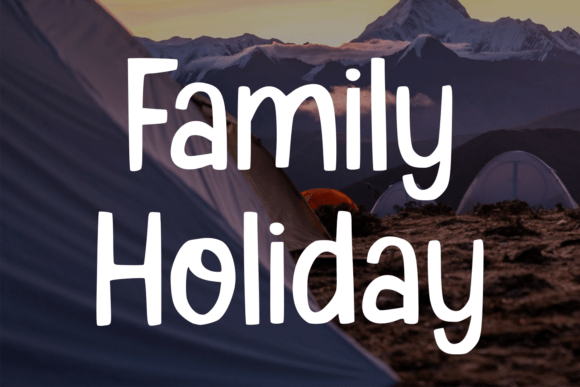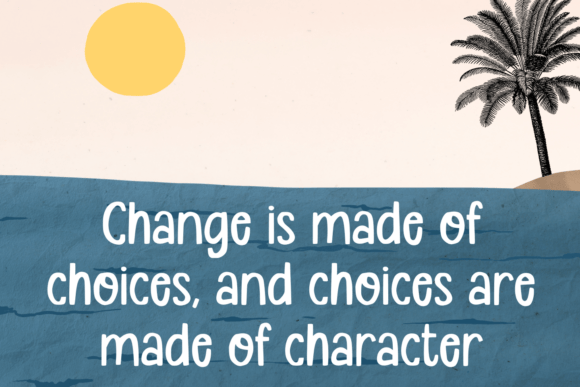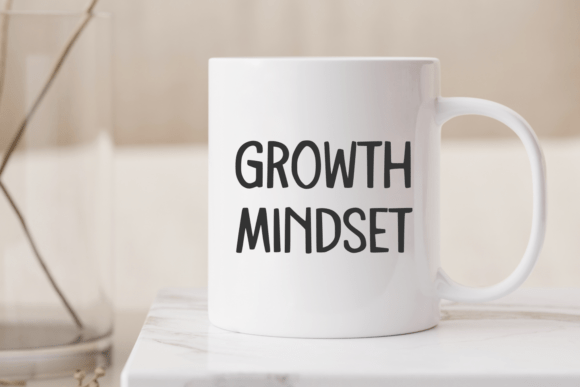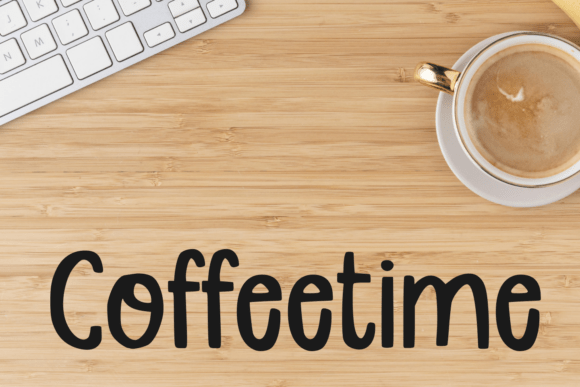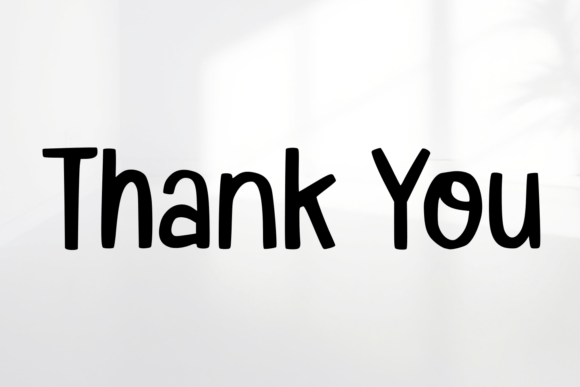
Gardenboy Font: Adding a Touch of Warmth and Personality to Your Designs
In the world of typography, fonts play a crucial role in conveying the tone and personality of a brand or design. If you’re looking for a typeface that exudes warmth, friendliness, and approachability, look no further than Gardenboy Font. This cheerful, hand-drawn display font is designed to bring a sense of joy and playfulness to every word, making it perfect for designers and crafters who want to add a human touch to their projects.
The Characteristics of Gardenboy Font
Gardenboy Font boasts a range of characteristics that make it stand out from other typefaces. Its rounded edges, slightly uneven strokes, and soft, organic feel give it a unique and charming personality. The font’s bold and highly readable letterforms make it perfect for headlines, titles, and short texts, while its subtle imperfections add a touch of authenticity and character.
One of the key features of Gardenboy Font is its ability to strike a balance between being bold and approachable. The font’s thick letterforms give it a strong visual impact, making it perfect for designs that need to grab attention. At the same time, its soft and rounded edges prevent it from feeling rigid or harsh, making it suitable for projects that require a friendly and approachable tone.
Perfect for a Range of Design Projects
Gardenboy Font is a versatile typeface that can be used in a wide range of design projects. Whether you’re working on branding, quotes, packaging, posters, or social media graphics, this font is sure to deliver a lively and relaxed vibe that feels both modern and effortlessly fun.
For designers and crafters who want to add a personal touch to their projects, Gardenboy Font is an excellent choice. Its hand-drawn feel and subtle imperfections make it perfect for designs that require a human touch, such as handmade crafts, DIY projects, or small business branding.
Why Choose Gardenboy Font?
So why choose Gardenboy Font over other typefaces? Here are just a few reasons:
- Unique personality: Gardenboy Font has a unique and charming personality that sets it apart from other typefaces.
- Highly readable: The font’s bold and clear letterforms make it highly readable, even at small sizes.
- Versatile: Gardenboy Font can be used in a wide range of design projects, from branding to social media graphics.
Tips for Using Gardenboy Font
Here are a few tips for using Gardenboy Font in your designs:
- Use it for headlines: Gardenboy Font is perfect for headlines and titles, where its bold and attention-grabbing letterforms can shine.
- Pair it with other fonts: Gardenboy Font pairs well with other fonts, such as sans-serif fonts or script fonts.
- Experiment with colors: The font looks great in a range of colors, from bright and bold to soft and pastel.
- Add texture and patterns: Consider adding texture and patterns to your design to give it an extra layer of depth and interest.
In conclusion, Gardenboy Font is a unique and charming typeface that is perfect for designers and crafters who want to add a touch of warmth and personality to their designs. With its rounded edges, slightly uneven strokes, and soft, organic feel, this font is sure to bring a sense of joy and playfulness to every word. Whether you’re working on branding, quotes, packaging, posters, or social media graphics, Gardenboy Font is an excellent choice.